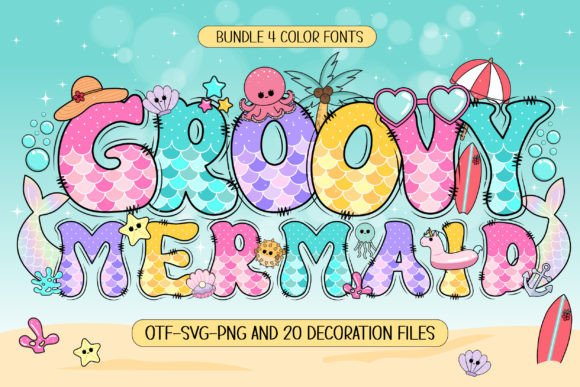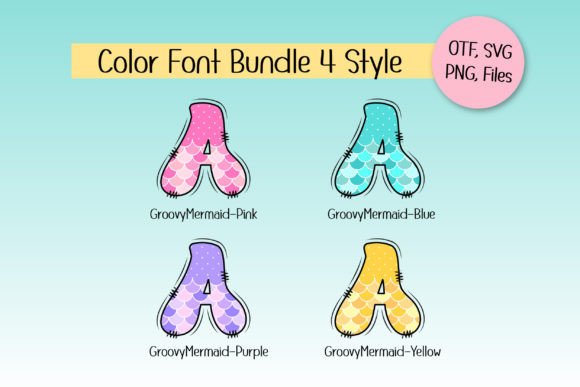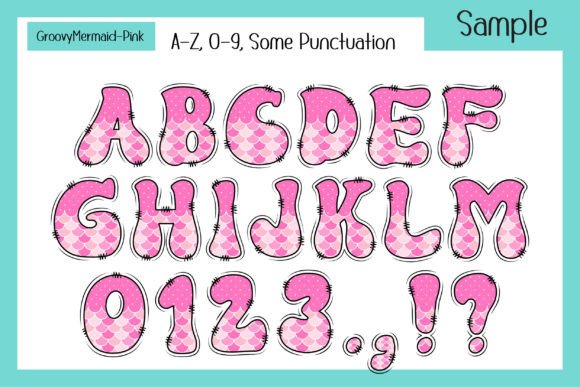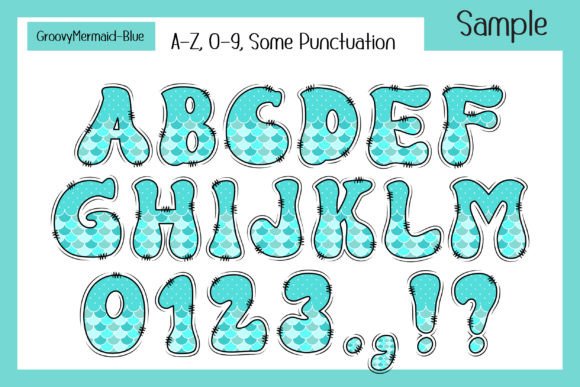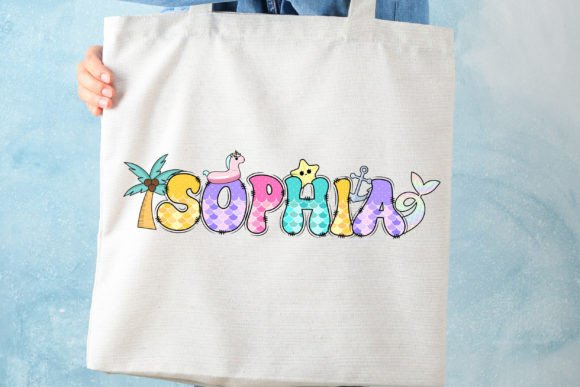
Groovy Mermaid Font
Introducing “Groovy Mermaid” a vibrant color font inspired by mermaids, fantasy, and the carefree vibes of summer. This whimsical font transports you to a world of children’s dreams with its delightful design. It consists of 4 sweet color fonts and includes 20 bonus matching clip arts, making it perfect for custom DIY craft projects, personalized names, sublimations, posters, and many other creative works. Add a touch of magic and fantasy to your creations with “Groovy Mermaid”!